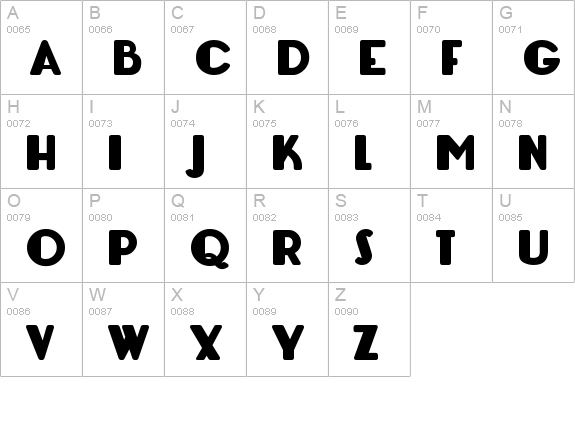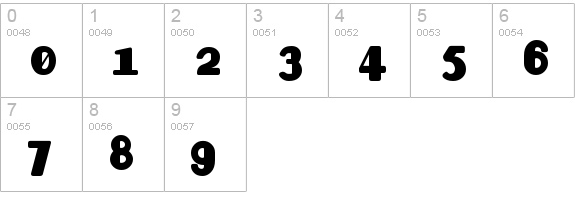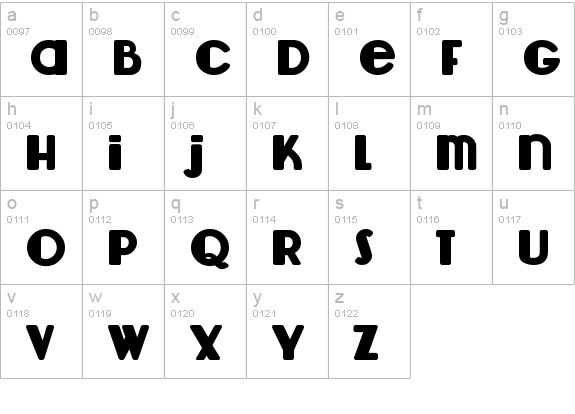
Lemondrop Bold Font Details
Lemondrop Bold is a strong, high-contrast variant in the Lemondrop typeface family \xE2\x80\x94 well suited to headlines, attention-grabbing titles, and strong calls-to-action.
Lemondrop Bold font is a vibrant and eye-catching typeface that is sure to make a bold statement in any design project. Its strong and confident letterforms exude a sense of energy and excitement, perfect for grabbing attention and adding a touch of dynamism to your designs. This font features a unique blend of sharp angles and smooth curves, giving it a modern and contemporary feel. The bold weight ensures maximum impact, making it ideal for headlines, titles, and any other text that needs to stand out. But what sets Lemondrop Bold font apart from the rest is that it is free. Yes, you read that right – this stunning font is freely available to download at FontsMarket.com. This means that you can add this powerful tool to your design arsenal without breaking the bank. Whether you're a professional designer looking to enhance your portfolio, a small business owner in need of a fresh and exciting logo, or a student working on a creative project, Lemondrop Bold font is the perfect choice. Its versatility and striking visual appeal will elevate your designs to new heights. So why wait? Head over to FontsMarket.com now and grab your free download of Lemondrop Bold font. Unleash your creativity and let this captivating typeface transform your designs into something truly remarkable.